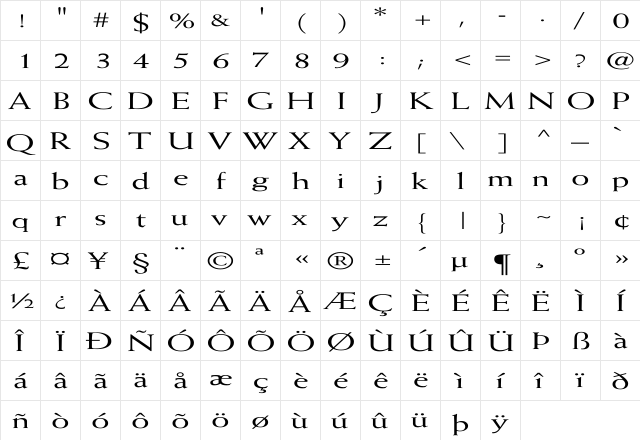
Weiss Ex Regular Font Preview
Weiss Ex Regular
Design Context for Weiss Ex Typeface
Weiss Ex offers clean, dependable letterforms without strong stylistic allegiance, making it a practical choice for designers who need flexibility.